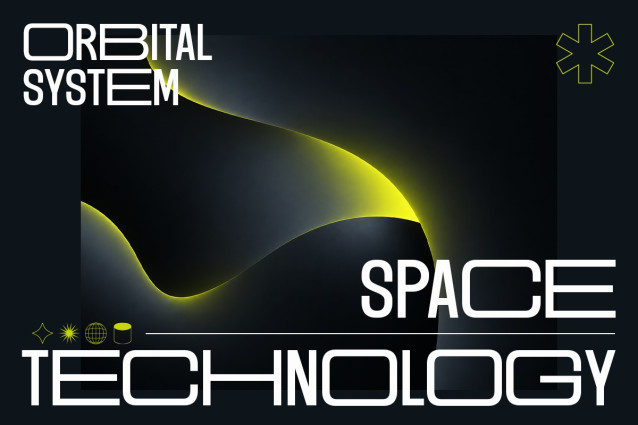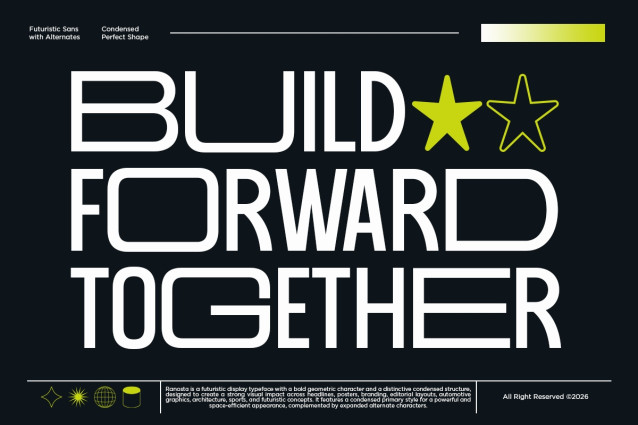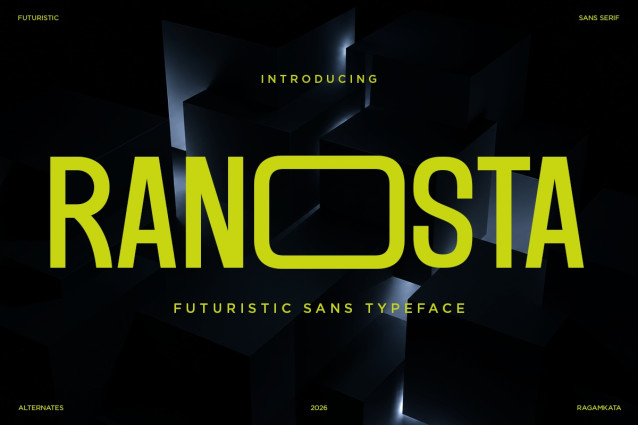
Ranosta – Ultrawide Futuristic Tech Sans Font
Ranosta is an ultrawide futuristic sans serif font designed for bold headlines, technology-driven branding, and modern visual identities. Its wide proportions, geometric construction, and distinctive letterforms create a strong sci-fi aesthetic while maintaining a clean and contemporary appearance.
Perfect for technology branding, futuristic posters, sci-fi titles, gaming graphics, esports identities, automotive designs, architecture, digital interfaces, editorial layouts, and modern advertising. Ranosta is especially effective when used at large display sizes where its wide character structure and sharp visual presence can take center stage.
Use Ranosta for logos, headlines, posters, album artwork, event graphics, product packaging, social media designs, website headers, and creative campaigns that need a futuristic and technologically inspired personality.